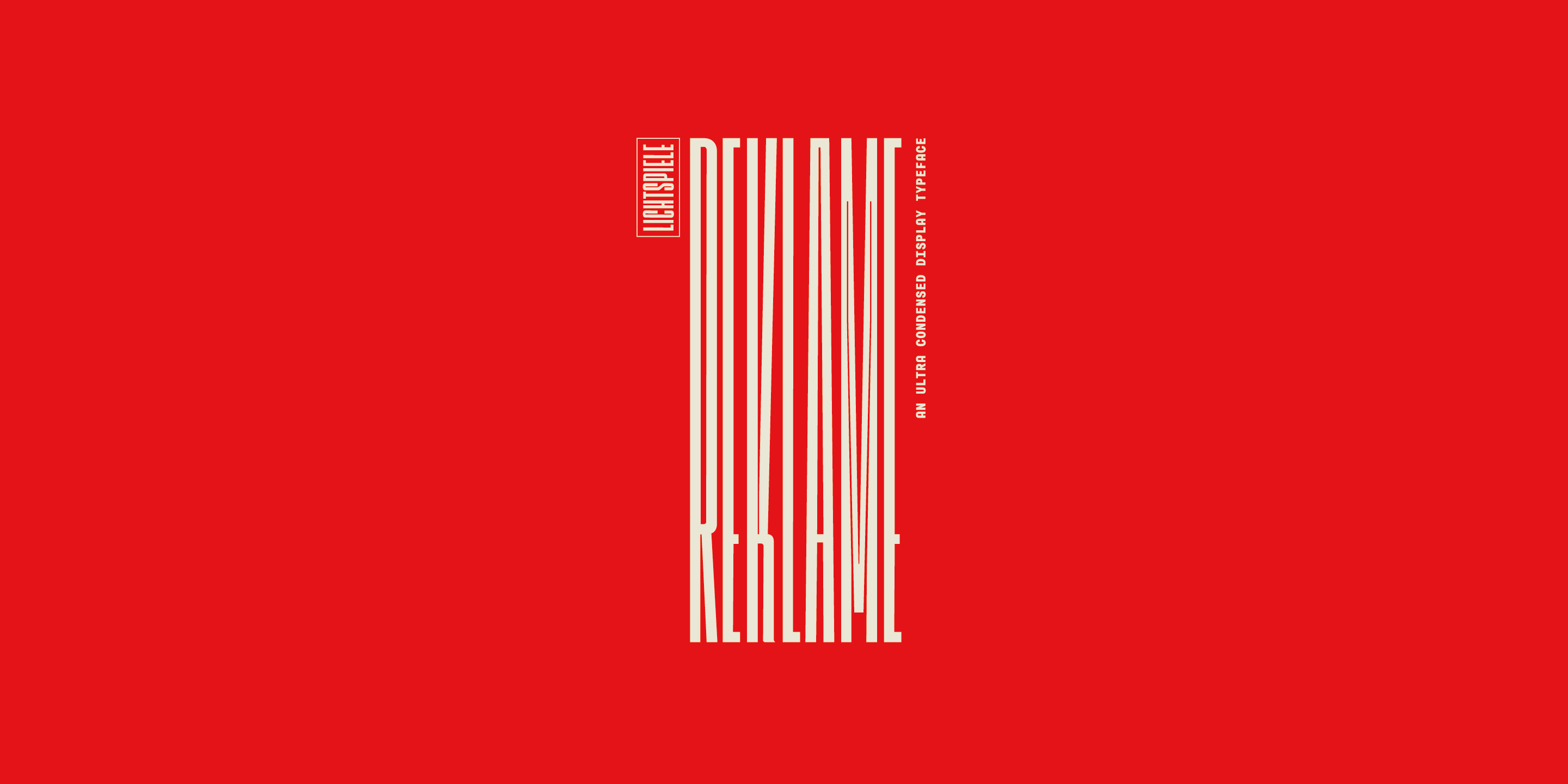
Lichtspiele Reklame Font is perfect for vintage cinema posters, retro theater signage, art deco branding projects, classic film festival graphics, old-fashioned neon signs, vintage advertising campaigns, speakeasy restaurant menus, 1920s themed events, cabaret show posters, antique entertainment venues, and any project that requires authentic vintage cinema aesthetics with theatrical glamour.
What makes Lichtspiele Reklame Font exciting is its authentic recreation of golden age cinema typography that captures the magic and glamour of early 20th century entertainment venues. This theatrical typeface features distinctive letterforms with dramatic flair that evoke the excitement of old movie palaces and vaudeville theaters. The font's cinematic character adds instant nostalgic appeal and entertainment value to any design, making it perfect for projects celebrating classic Hollywood glamour and vintage showbiz.
Lichtspiele Reklame Font comes in multiple font families including Regular, Bold, Condensed, Outline, Shadow, and Neon variations, offering designers comprehensive options to create dramatic compositions and achieve the perfect vintage cinema aesthetic for entertainment-focused design projects.
Whether you're developing retro entertainment branding, creating classic film promotion materials, or designing vintage-inspired advertising campaigns, Lichtspiele Reklame Font Free Download provides the ideal solution for projects demanding authentic cinema nostalgia. This distinctive typeface excels in display applications where theatrical presence is essential, ensuring your designs communicate classic entertainment glamour and vintage showbiz appeal. The dramatic styling and cinematic character of Lichtspiele Reklame Font make it an indispensable tool for designers who prioritize vintage entertainment aesthetics, theatrical drama, and classic Hollywood sophistication in their typographic choices.